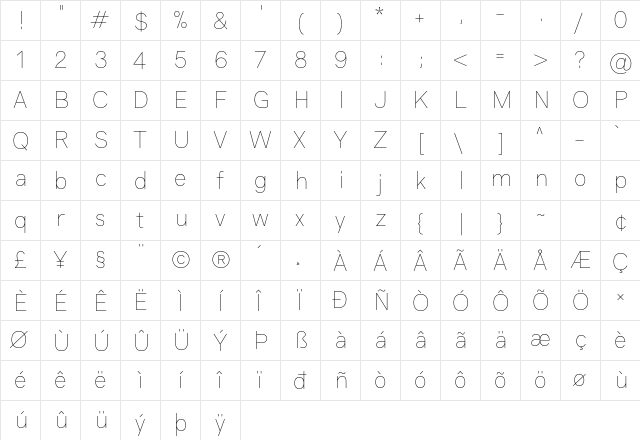
Genome Thin Regular
| Designer | Alfredo Marco Pradil |
Design Context for Genome Thin Typeface
Genome Thin takes a measured approach to typography — its balanced proportions and neutral character make it a reliable workhorse for both digital and print work. Its slender proportions lend an understated elegance to any composition.
Pro Tip: Use Genome Thin in both headline and body roles to test its range before committing to a single application.